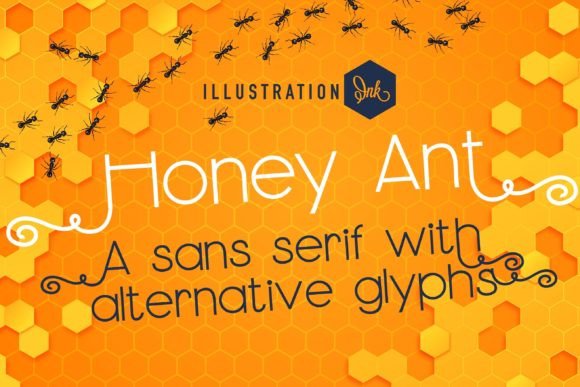
Step into the realm of enchanting typography with Honey Ant Font, an exquisite sans serif creation from the design studio, Illustration Ink. This meticulously crafted font family invites you to explore a world of elegance and charm, adorned with hand-crafted flourishes that add an artistic touch to your digital creations.
Meticulously handcrafted, Honey Ant Font captures the essence of individuality, featuring alternative letterforms that reflect the artist's unique hand. Dive into a treasure trove of expressive characters, each carrying the warmth of human artistry and inviting you to infuse your designs with a personal touch.
With its inherent versatility, Honey Ant Font effortlessly adapts to a myriad of projects, whether you're crafting invitations that whisper elegance, designing logos that exude creativity, or creating social media graphics that demand attention. Its bold and lite versions provide the perfect balance, allowing you to craft designs with both impact and finesse.
Immerse yourself in the allure of Honey Ant Font, a hand-crafted masterpiece that transcends the ordinary. Its enchanting letterforms, imbued with the artist's passion and skill, will elevate your designs, transforming them into captivating expressions of your unique style.
Embrace the Honey Ant Font experience today, and let your creativity flourish amidst the beauty of hand-crafted typography.